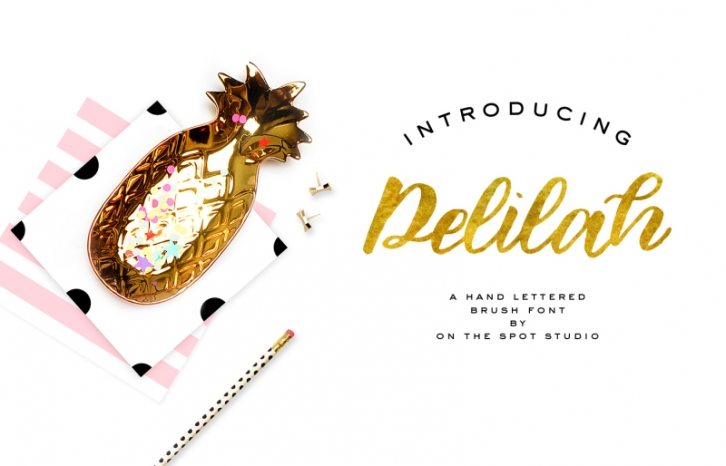
Delilah is a hand lettered brush font with bonus alternates. Great for branding, journaling, scrapbooking, etc. MAY be used for commercial use with the standard license. If you have any questions about what you can or cannot do with the font please feel free to shoot me a message!